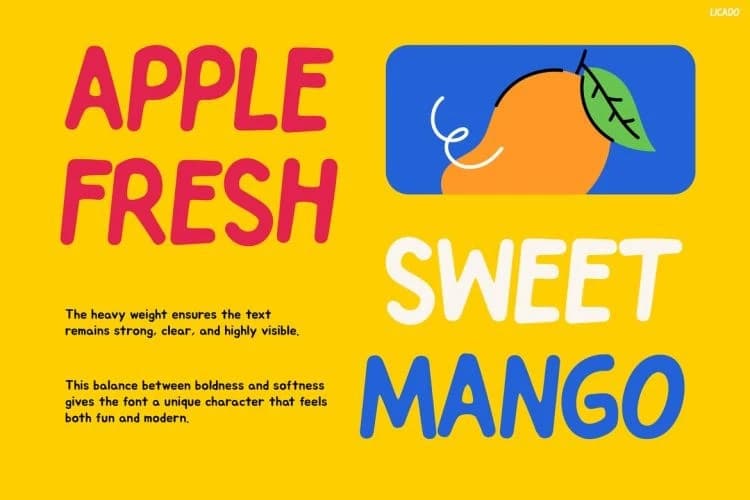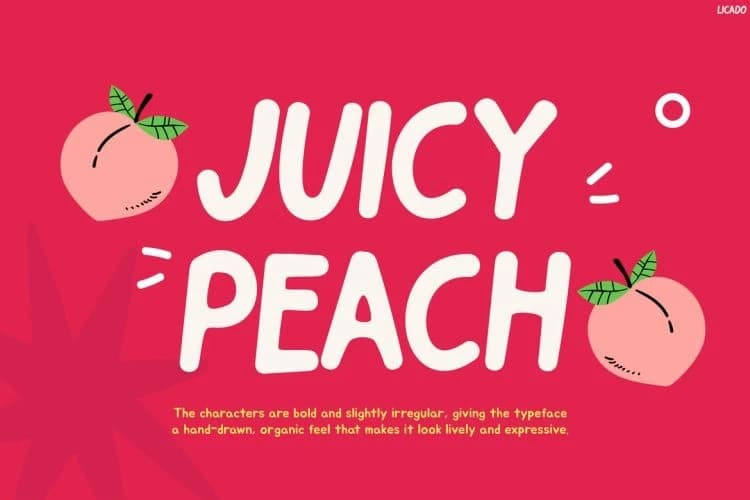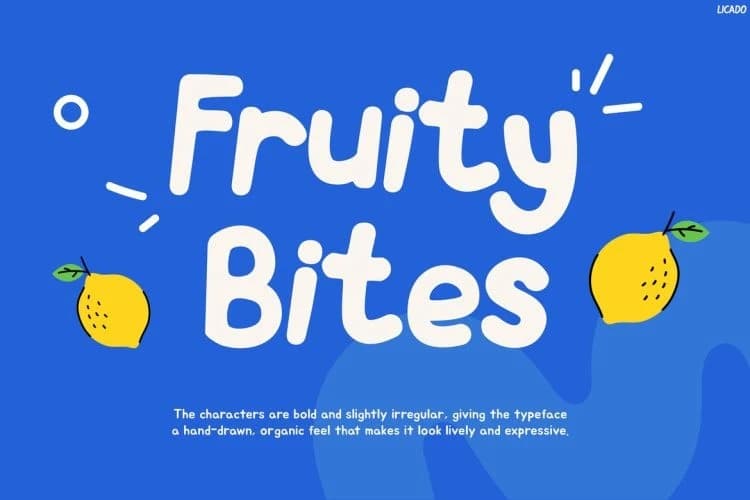
Licado Playful Font
Licado Playful Font is a bright and cheerful display typeface designed to bring fun, color, and personality into creative kids-themed designs. Its rounded letterforms, playful curves, and friendly proportions instantly create a lively and welcoming look.